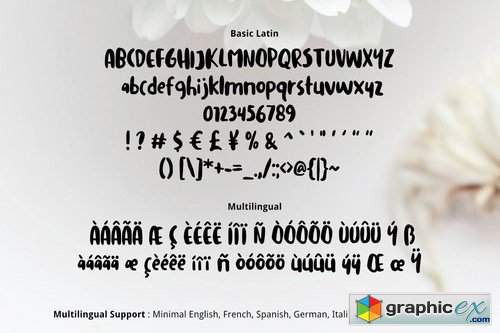
Flowery Brush Font
Flowery Font is lovely cute multipurpose handmade font, suitable for many project children book, quotes, logo , heading , title etc.